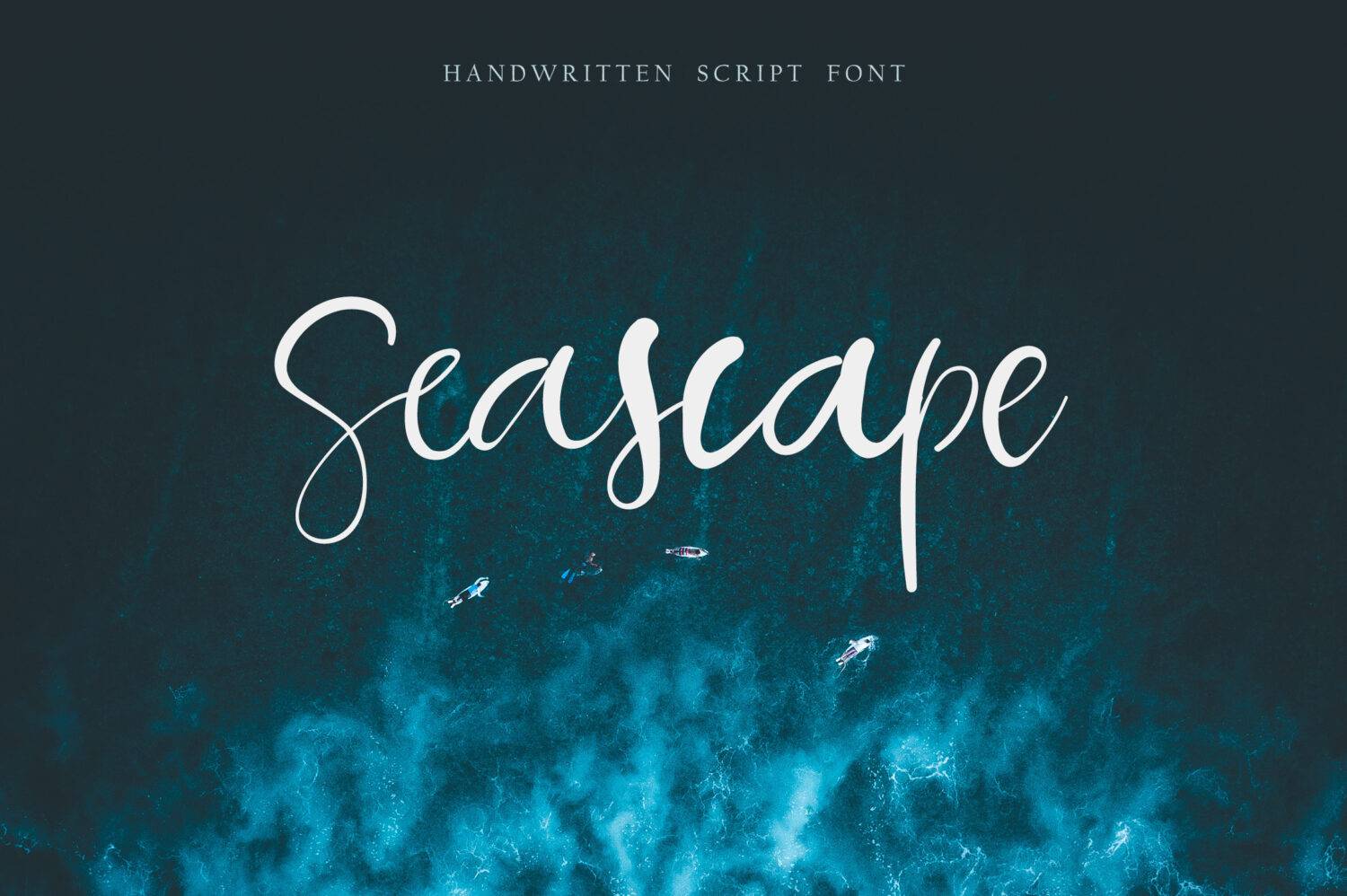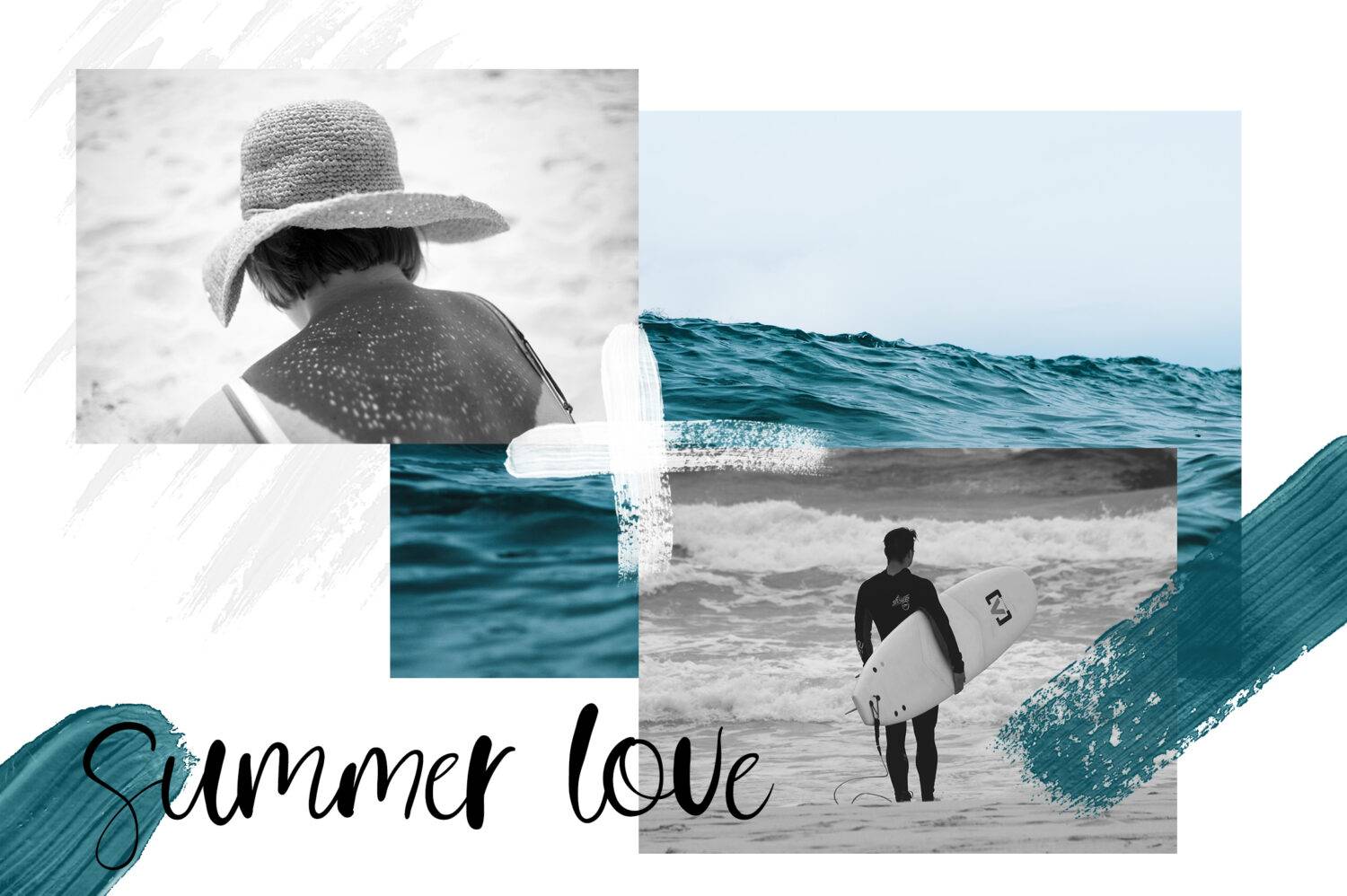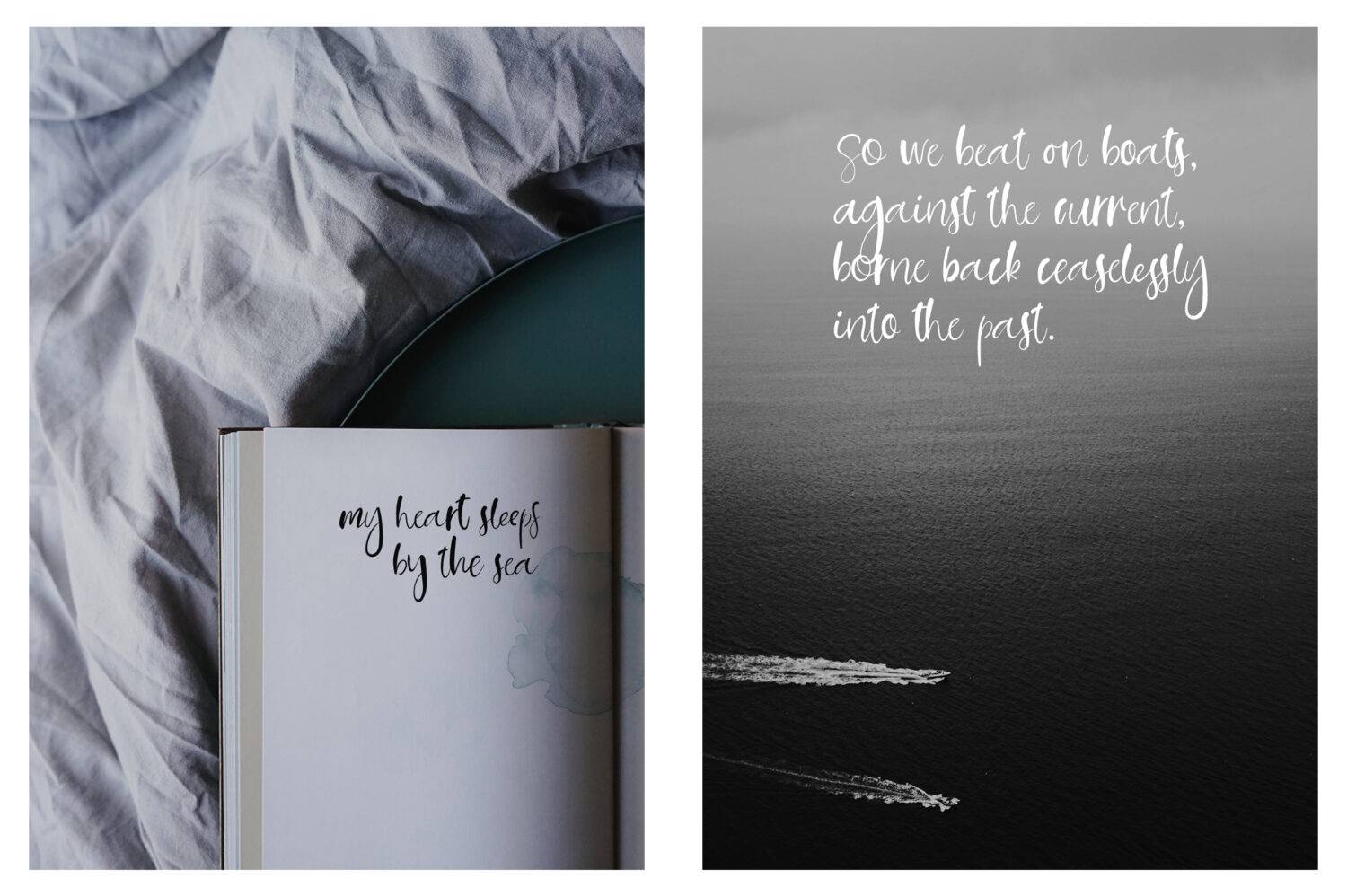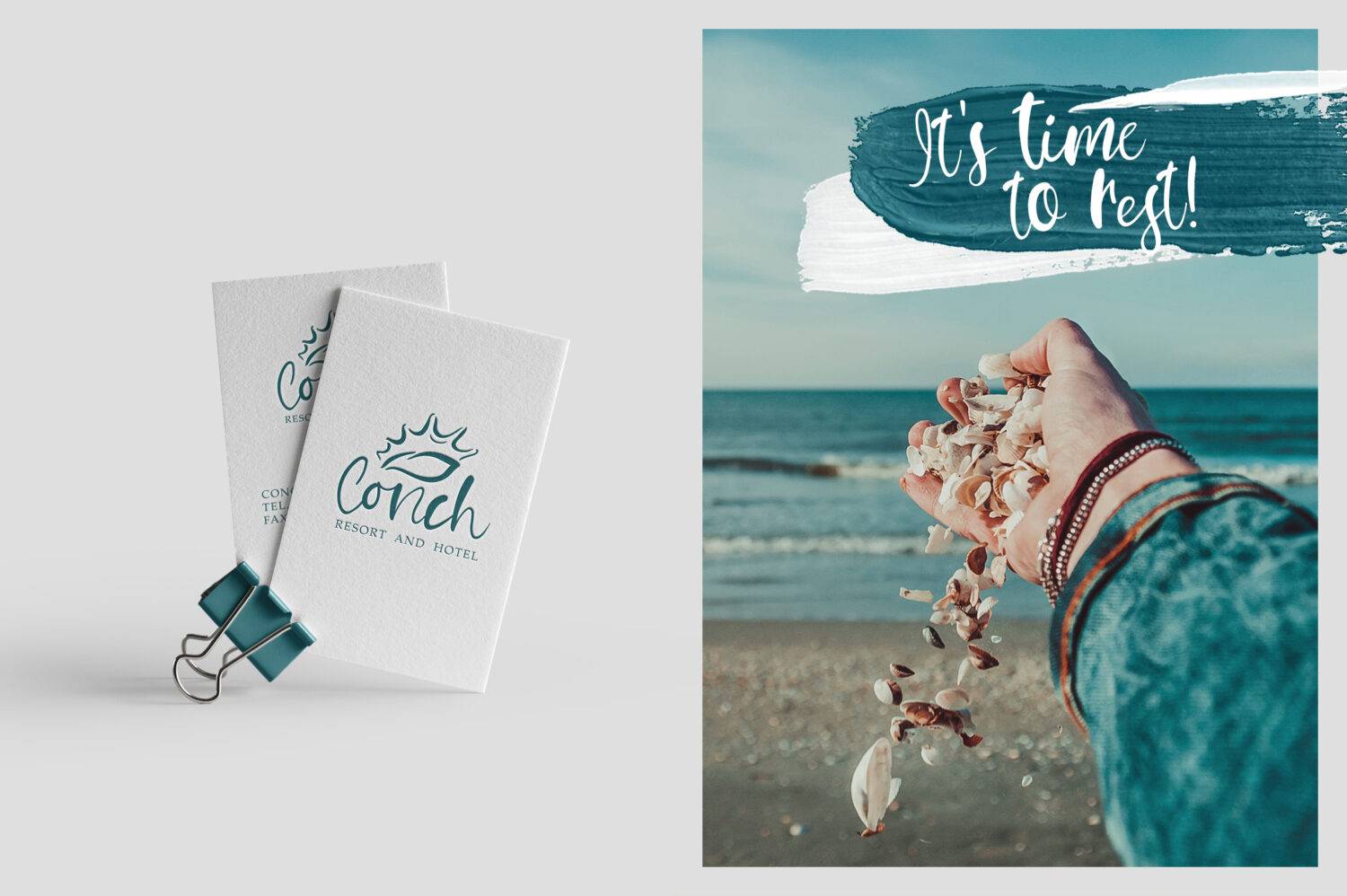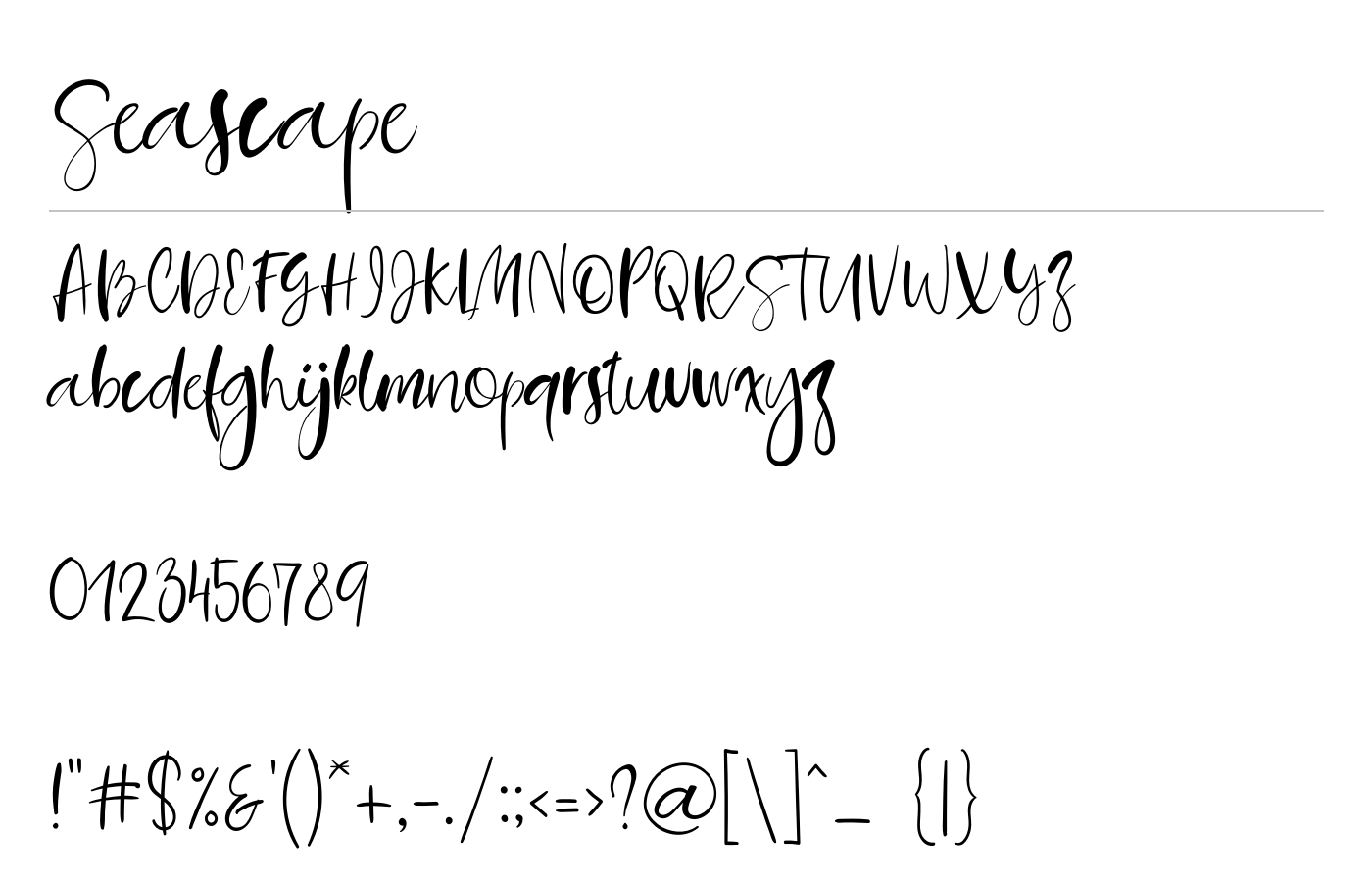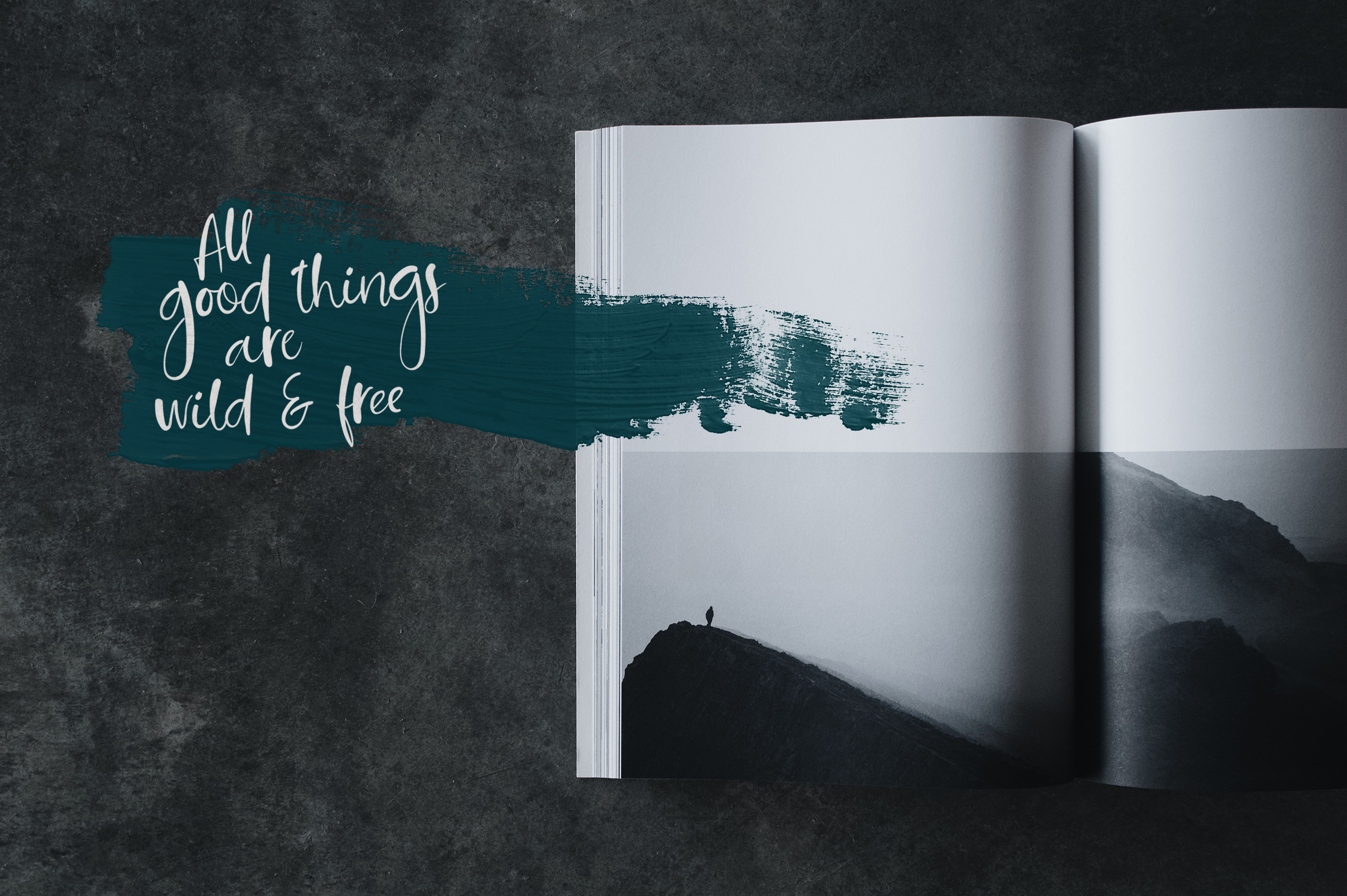
Seascape is a playful and elegant handwritten script font with a light, airy feel created by its slender strokes and tall x-height. Its flowing, casual letterforms, featuring a mix of single and double-story characters, bring a personal, creative touch ideal for branding, invitations, and social media designs. This font works beautifully where a friendly yet stylish vibe is desired, making it perfect for fashion, lifestyle, and creative projects.
Seascape
About Seascape
| Font family | Seascape |
| Designer | Anna Markovets |